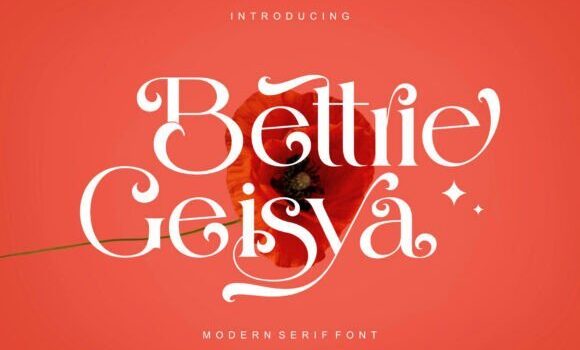
bettriegeisya
Bettriegeisya Font – Free Download Introduction to Bettriegeisya Font Introducing BettrieGeisya, a luxurious and elegant serif typeface. 📸 Preview Gallery 6 images 📌 Product Name Bettriegeisya Font 👤 Author Design Joo 📂 Category Explore ⬇️ Download Bettriegeisya Font FREE Free